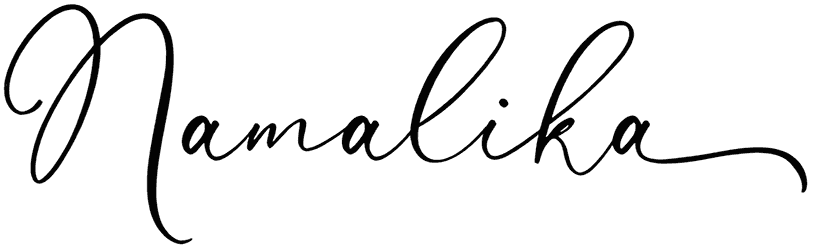
Dancing on the Beach Font
Dancing On The Beach Font
If you land in the camp of friendly and approachable people and want your brand to seem so, you take a moment and give this beautiful font a look!
Dancing on the Beach is a handwriting font that helps you convey a sense of informality and sound approachable to your target market. It comes with both upper and lowercase letters, however, it doesn’t cover general punctuation. You can use this 80s script font for branding projects as well as print T-shirts, greeting card designs, and more.